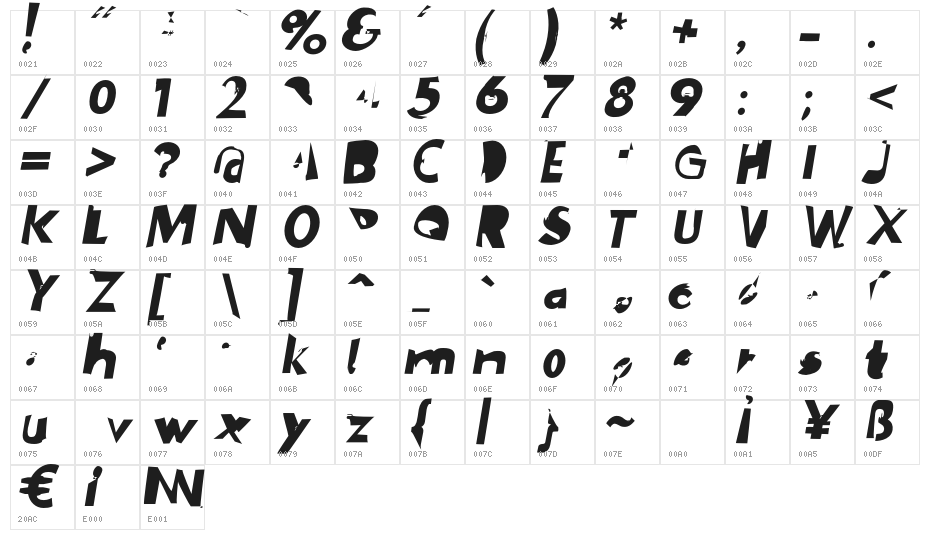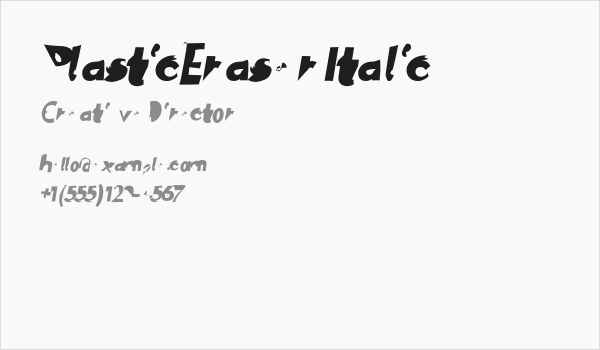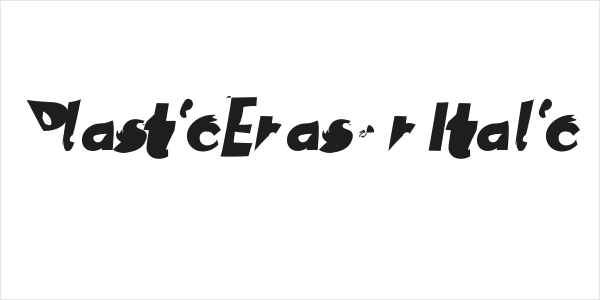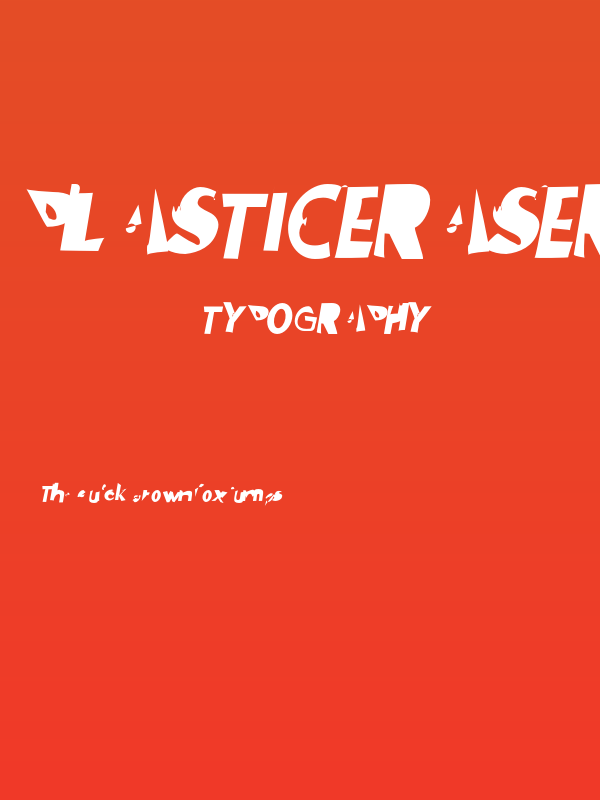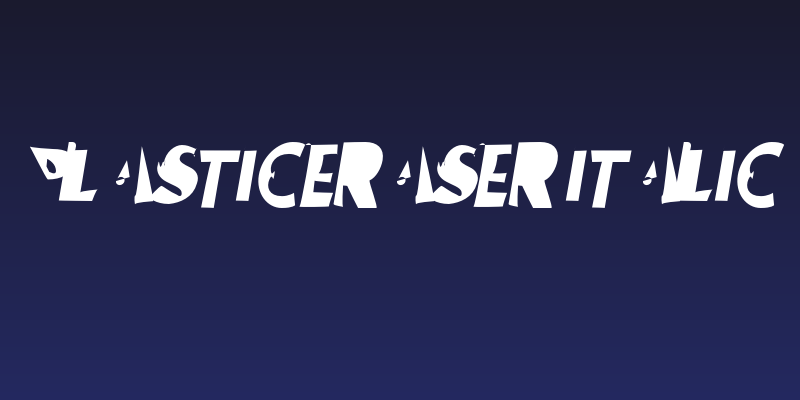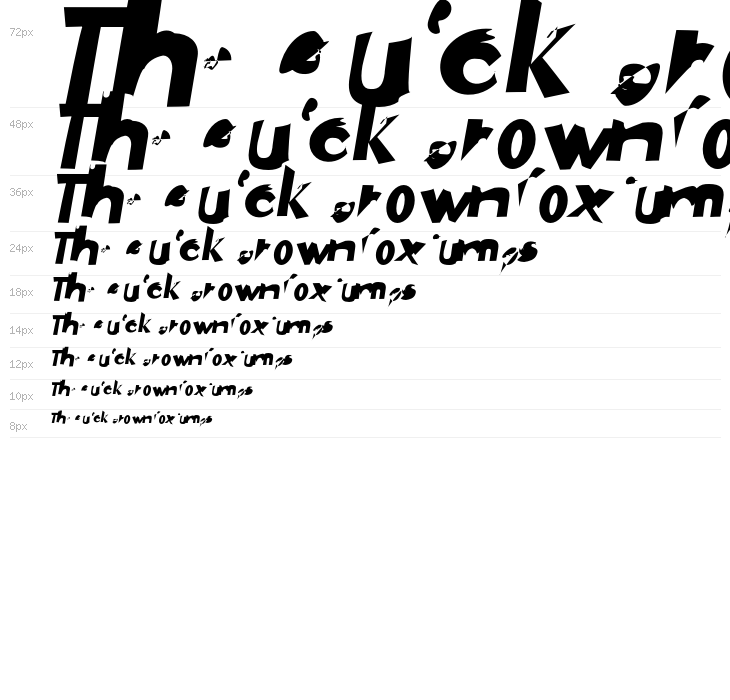
PlasticEraser Italic Font
PlasticEraser Italic Description
This font features a dynamic and edgy design with a distinctly italicized style. The characters are bold and have a jagged, distressed appearance, giving them a sense of movement and energy. The uppercase and lowercase letters maintain a consistent style, with sharp angles and irregular edges that create a visually striking effect. The numbers and special characters follow the same design principles, ensuring a cohesive look across all elements. This font's unique aesthetic makes it suitable for projects that require a bold and unconventional typeface.
Overall StyleModern, Edgy
Proposed ProjectsIdeal for edgy branding, album covers, posters, and creative advertising.